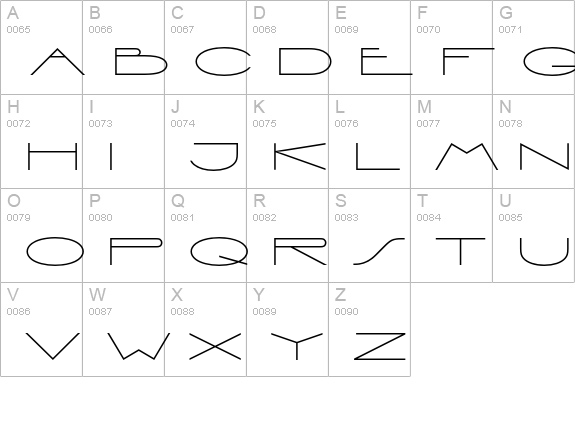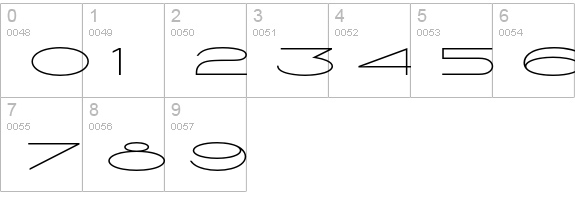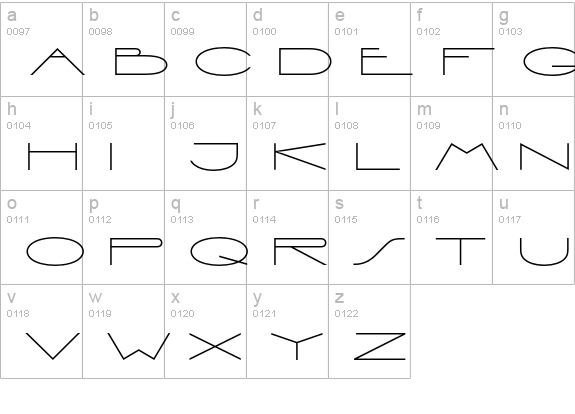
Vienna Extended Std Font Details
Vienna Extended Std is a distinctive, extended-width variant in the Vienna typeface family \xE2\x80\x94 well suited to design and typography projects.
Vienna Extended Std is a stunning and versatile font that combines elegance with a modern twist. Its elongated letterforms add a touch of sophistication to any design project, making it perfect for logos, headings, and titles. This font features a unique blend of sleek curves and sharp edges, creating a harmonious balance that catches the eye. Its clean and legible design ensures readability even at smaller sizes, making it ideal for both print and digital applications. With Vienna Extended Std, you have the freedom to express your creativity and bring your designs to life. Whether you're designing a magazine layout, creating a brand identity, or crafting a website, this font will effortlessly elevate your work to new heights. What makes Vienna Extended Std even more remarkable is that it is available for free! You can easily download this font from FontsMarket.com, a trusted source for high-quality fonts. By offering this font for free, we aim to make it accessible to designers and creatives worldwide, allowing them to enhance their projects without any financial constraints. So why settle for ordinary fonts when you can have Vienna Extended Std? Download it now from FontsMarket.com and unleash your imagination with this exceptional typeface.